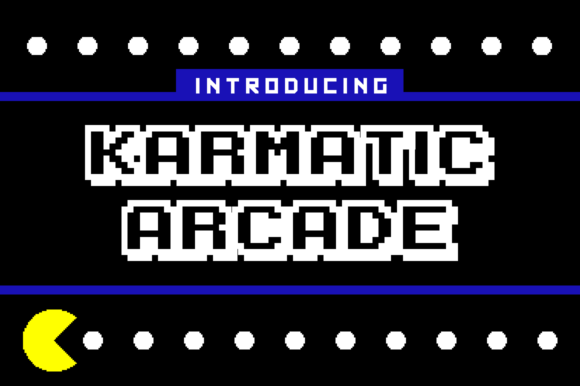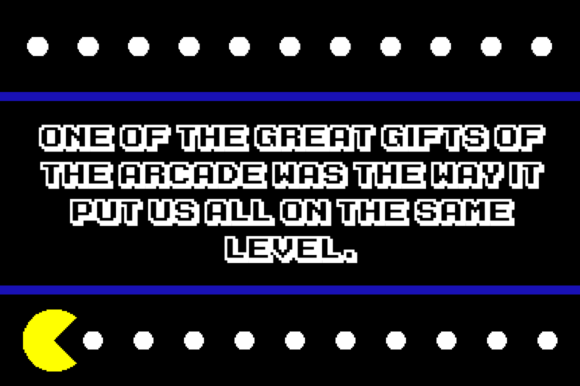
Karmatic Arcade Font$5+$5+https://schema.org/InStockusdMZKNMZKNKarmatic Arcade is a fun, 8-bit display font that will give your designs a ton of video game nostalgia!Name a fair price:$Add to cartSize8.97 KBAdd to wishlist New wishlistShareShare on XShare on Facebook Copy linkCopy product URL